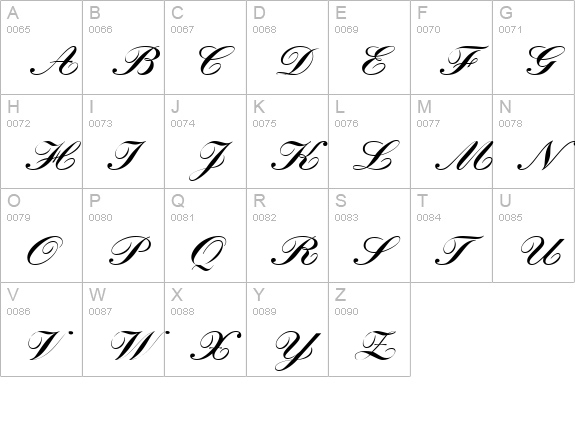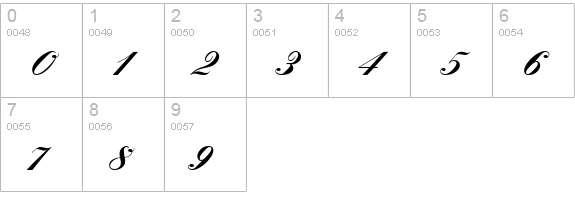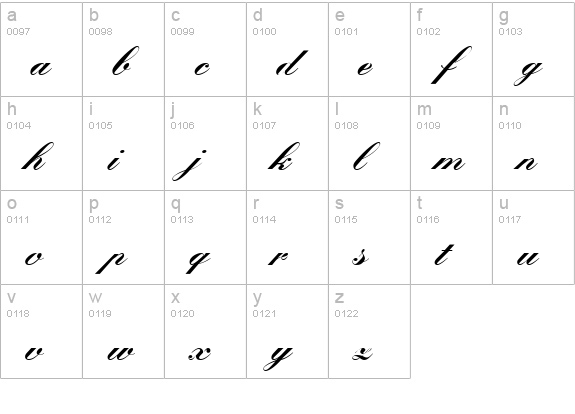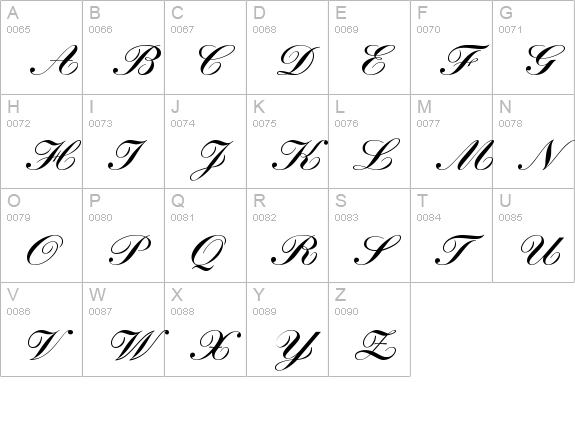
Quill Script Black SSi Black Font Details
Quill Script Black SSi Black is a maximum-weight, dramatic variant in the Quill typeface family \xE2\x80\x94 well suited to maximum-impact headlines, posters, and packaging.
Quill Script Black SSi Black font is a stunning display font that exudes sophistication and elegance. Its bold strokes and intricate details make it perfect for adding a touch of class to any design project. Whether you're creating invitations, logos, or headlines, this font is sure to make a statement. With its unique handwritten style, Quill Script Black SSi Black font adds a sense of authenticity and personality to your designs. Its flowing curves and sharp edges create a harmonious balance, making it visually appealing and easy to read. And the best part? Quill Script Black SSi Black font is available for free! You can easily download it from FontsMarket.com and start using it in your projects right away. Whether you're a professional designer or a hobbyist, this font is a valuable addition to your collection. So why wait? Enhance your designs with the timeless beauty of Quill Script Black SSi Black font. Download it for free at FontsMarket.com and unleash your creativity today.